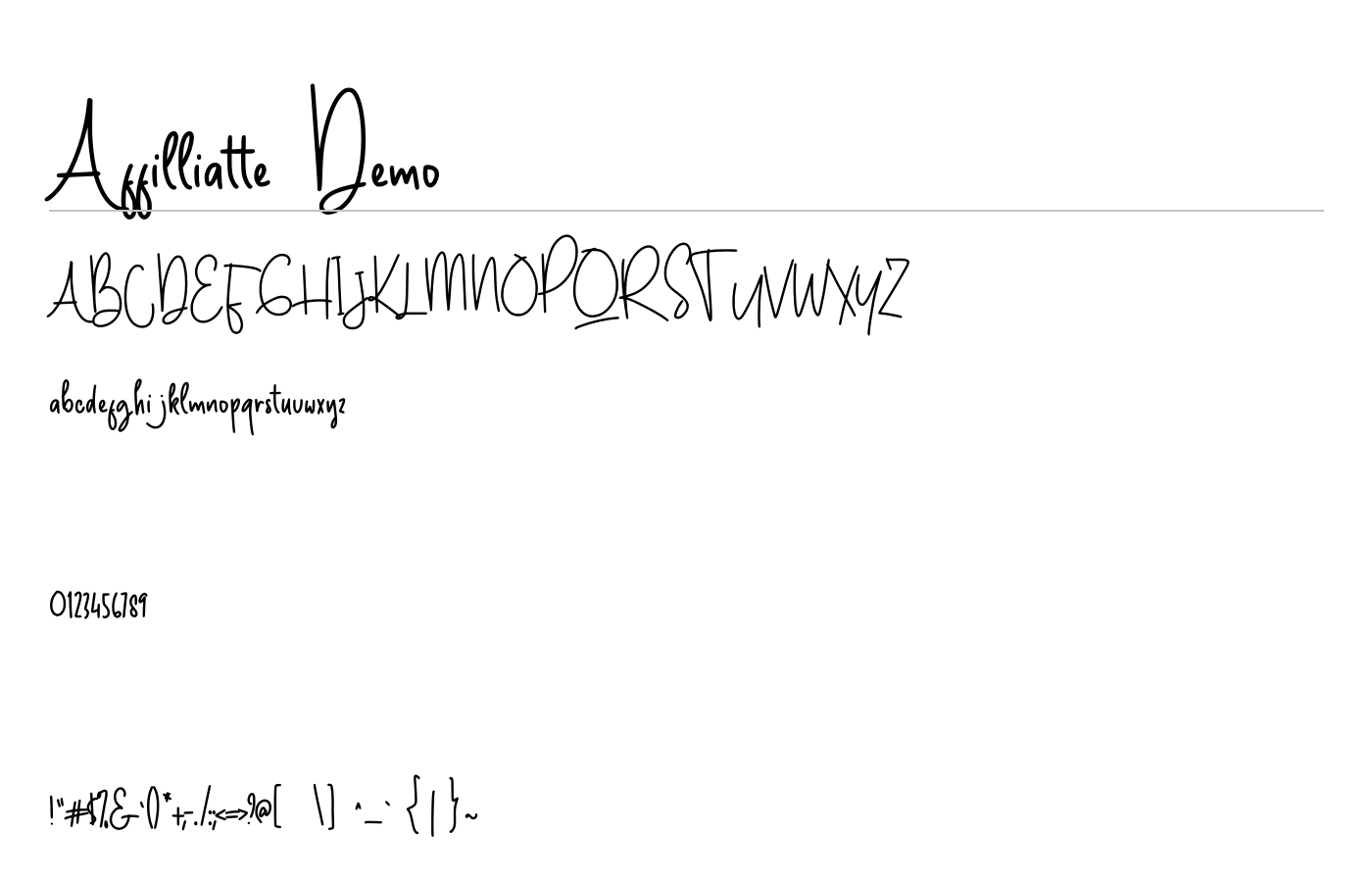
Affilliatte Demo is a playful handwritten font featuring tall, narrow letterforms with a casual, slightly quirky style. Its thin strokes and varying line heights create a lively, informal vibe perfect for creative projects, personal branding, and eye-catching headlines. This font works well where a friendly and approachable feel is desired, especially in designs that want to capture personality and spontaneity.
Affilliatte Demo Font
About Affilliatte Demo Font